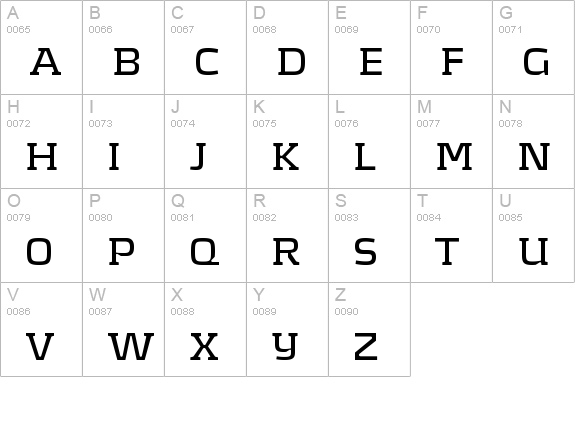
Kontrapunkt Bold Font Details
Kontrapunkt Bold is a strong, high-contrast variant in the Kontrapunkt typeface family \xE2\x80\x94 well suited to headlines, attention-grabbing titles, and strong calls-to-action.
Kontrapunkt Bold is a modern and striking typeface that exudes confidence and strength. Its bold weight commands attention and makes a bold statement in any design project. The clean lines and sharp angles give it a contemporary feel, making it perfect for headlines, logos, and branding materials. What sets Kontrapunkt Bold apart is that it is not only visually impactful, but also versatile and easy to read. Whether used in print or digital media, this font maintains its clarity and legibility at any size. Its bold presence on the page ensures that your message will not go unnoticed. Furthermore, Kontrapunkt Bold is available for free download at FontsMarket.com, making it easily accessible to designers and creatives looking to incorporate this powerful font into their projects. Embrace the boldness of Kontrapunkt Bold and elevate your designs with this impactful typeface.